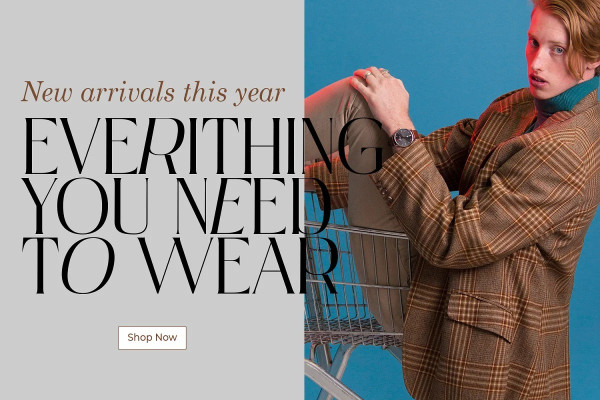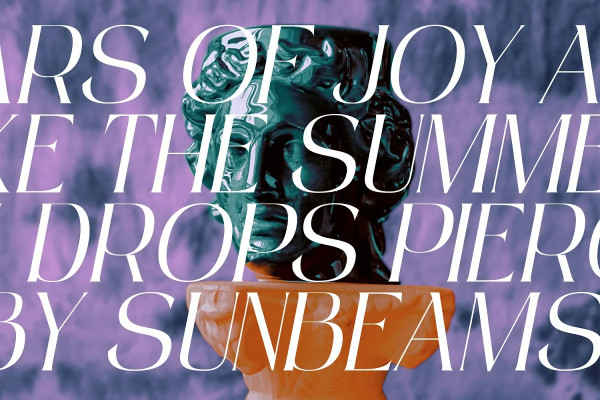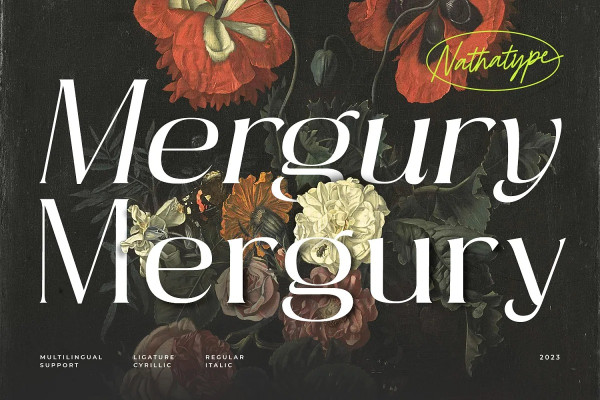
Mergury Font
Mergury Font is a sans serif font made in two letter varieties: regular and italic. The regular variation shows simple, clean sans serif in firm, straight lines to express modernity and simplicity. Its consistent, similar letters make it more legible and suitable to apply for longer texts or regular usages.
Meanwhile, the italic variation shows tilt forms to the regular letters in the tendency of facing to the right side creating dynamic, moving nuances. Such a tilt style is common in highlighting important texts in designs.
Despite its letter differences, Mergury remains consistent in terms of design and aesthetic styles. The proportions of letters, width, and lines remain solid amid these two variations keeping the visual consistency of those two enabling it to be used together in one design composition. Either the regular or the italic variation is designed to maintain the legibility of the letters. Its characters are well-positioned, and have proper spaces ensuring the text to be legible with ease. Furthermore, you may enjoy the available features here.